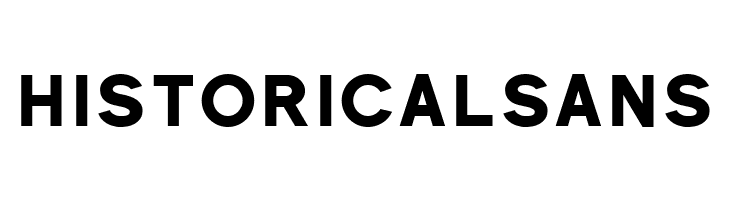
Bienvenue dans Polices Populaires — là où se rencontrent popularité et qualité. Voici les polices les plus téléchargées et utilisées cette année. Pour des choix sûrs (logos, web, social), commencez ici.
Chaque police phare se distingue par équilibre, lisibilité et polyvalence. Vous trouverez des sans‑serifs modernes, des scripts élégantes, des serifs vintage et des displays minimalistes.
A dynamic, shattered font with jagged edges and a fragmented appearance.
A cursive, handwritten font with elegant, flowing characters.
A bold, playful handwritten font with rounded, whimsical letterforms.
A whimsical collection of decorative elements featuring hearts, arrows, and banners.
A bold, flowing script font with elegant, cursive letterforms.
A sleek, modern font with a dynamic slant and consistent stroke thickness.
A bold, graffiti-inspired font with dynamic and edgy characters.
A playful and elegant script font with smooth, flowing lines and decorative flourishes.
An elegant cursive script font with fluid, handwritten strokes.
A playful, hand-drawn font with a casual and friendly vibe.
A bold, jagged font with an eerie, playful style.
A modern, geometric italic font with clean lines and sharp angles.
A bold, geometric font with a modern and futuristic style.
A playful, bold handwritten font with a whimsical and energetic style.
A modern, italic font with smooth curves and a dynamic style.
A lively handwritten font with a playful and modern style.
A bold, energetic script font with a handwritten, cursive style.
A bold, elegant serif font with a classic Roman influence.
A hand-drawn, organic font with wavy, irregular outlines.
A bold, industrial font with a mechanical, futuristic aesthetic.
A bold, expressive handwritten font with fluid, cursive letterforms.
A tall, narrow, and modern condensed font with uniform stroke width.
A delicate, flowing script font with elegant, thin strokes and a handwritten feel.
An elegant, flowing script font with ornate, cursive letterforms.
Expressive handwritten script with tall, narrow, and irregular strokes.
A modern, italicized font with smooth, rounded characters and a dynamic style.
A bold, futuristic italic font with sharp, angular edges and a dynamic style.
A bold, 3D geometric font with a dotted texture and strong visual impact.
An elegant script font with fluid, cursive strokes and a refined appearance.
A bold, geometric font with a modern and futuristic design.
A modern, geometric sans-serif font with clean lines and a futuristic feel.